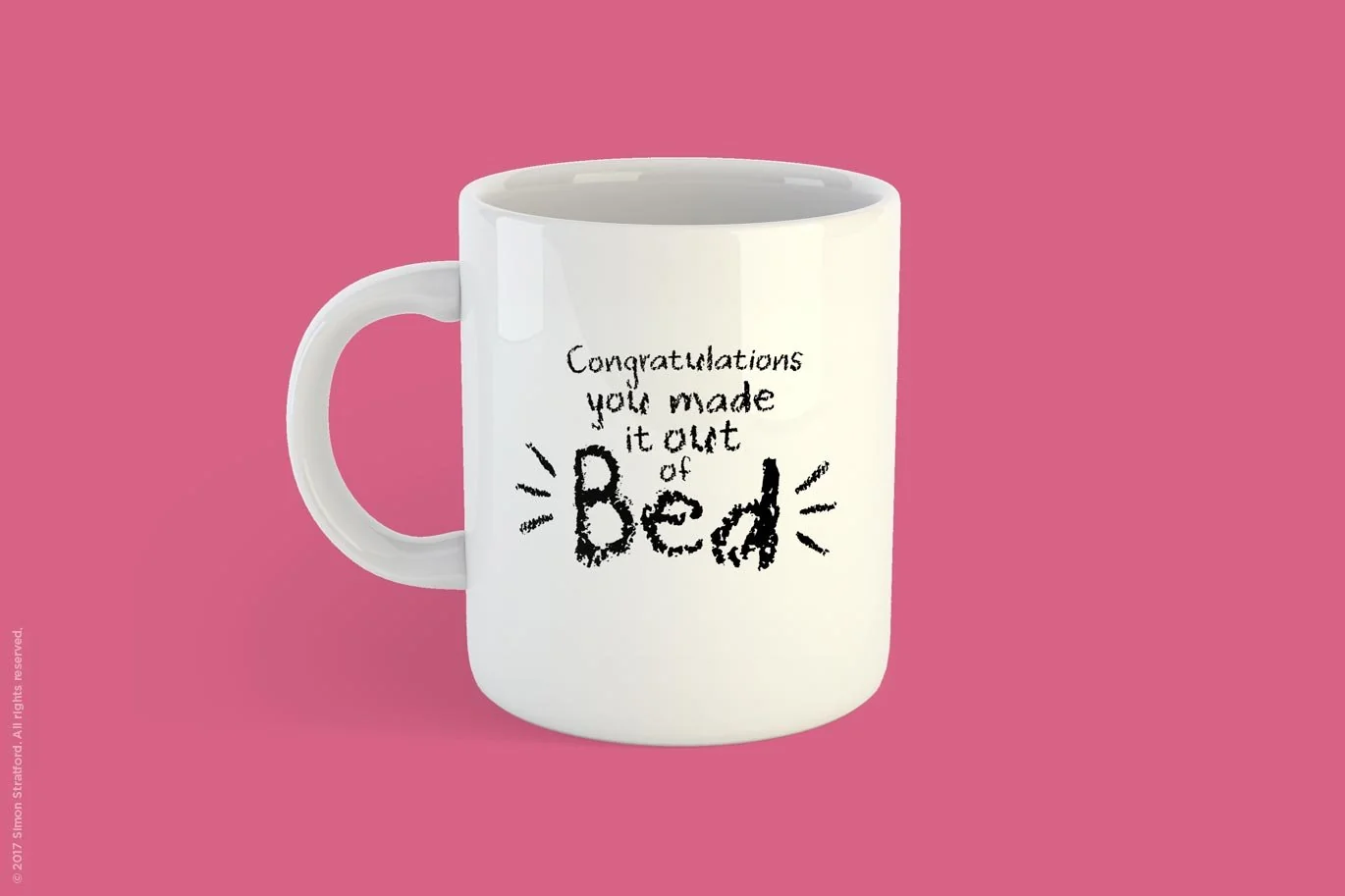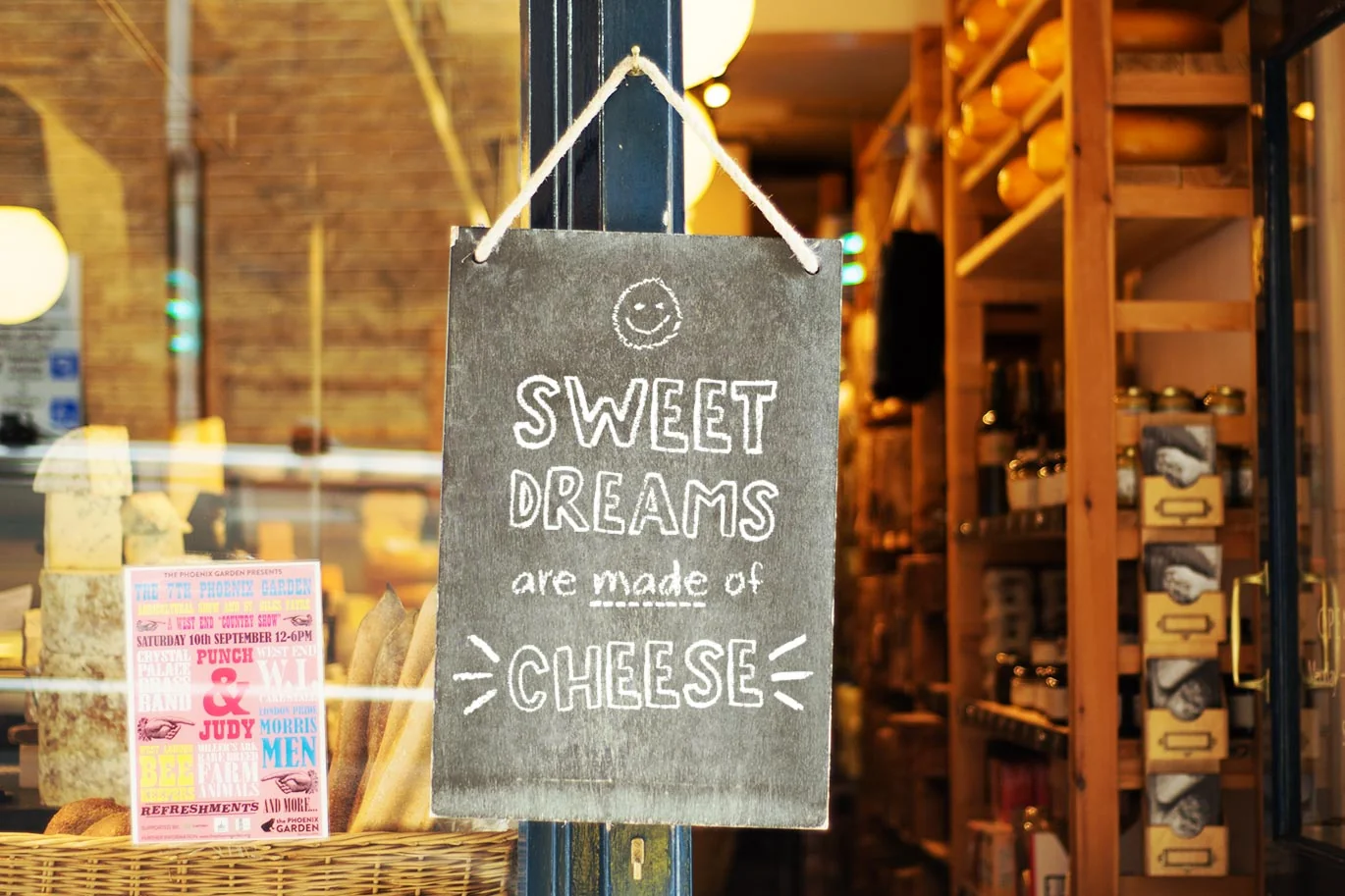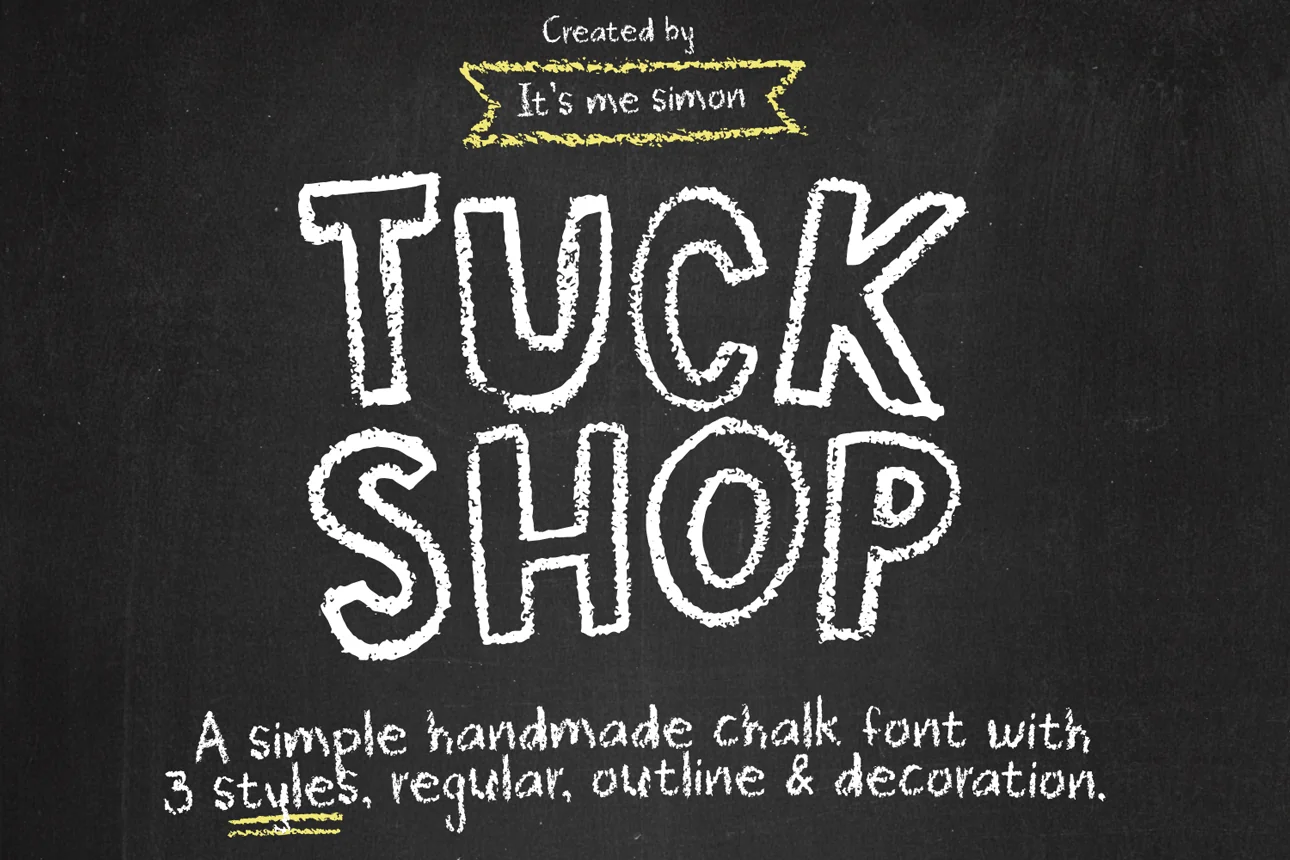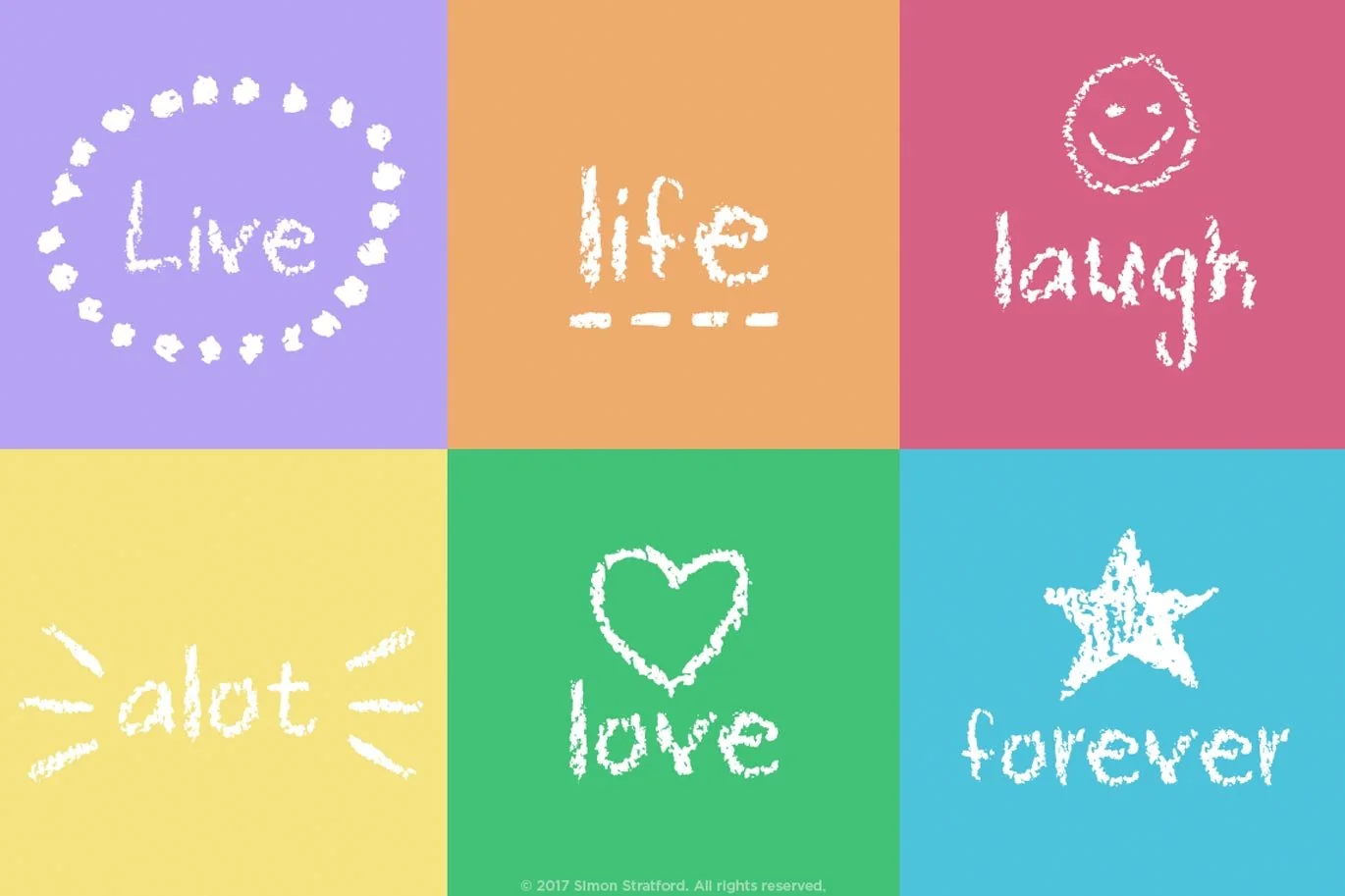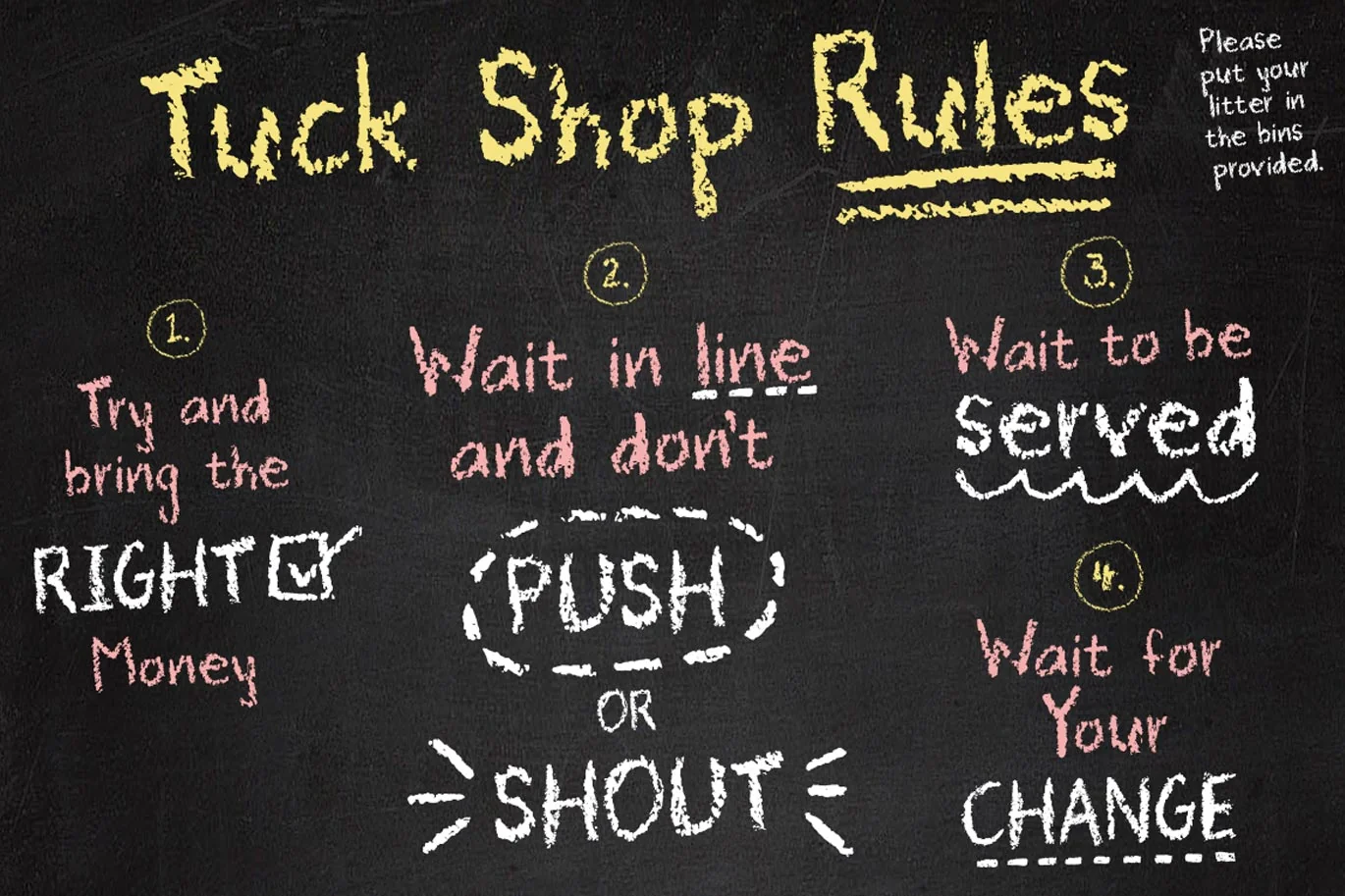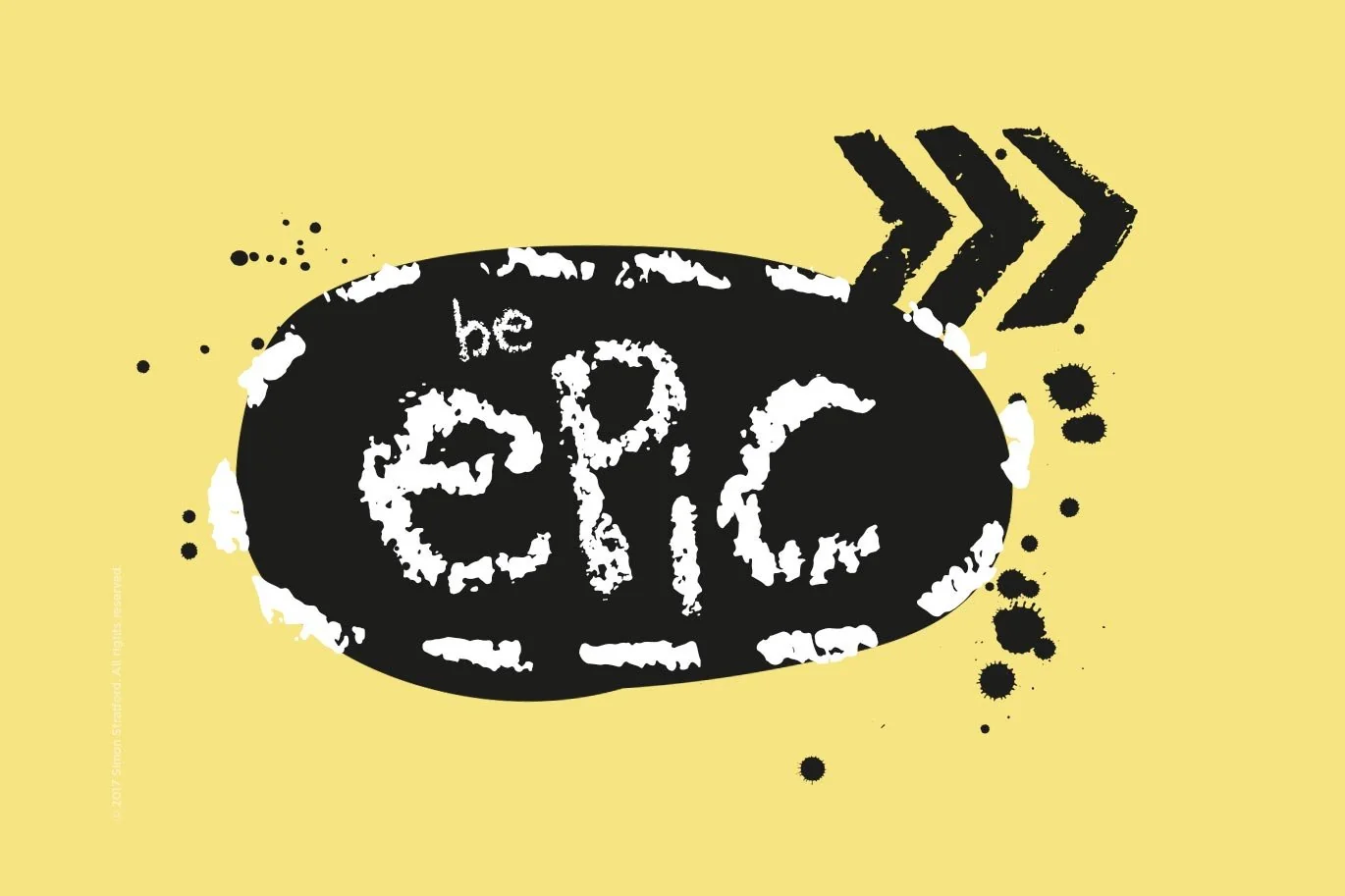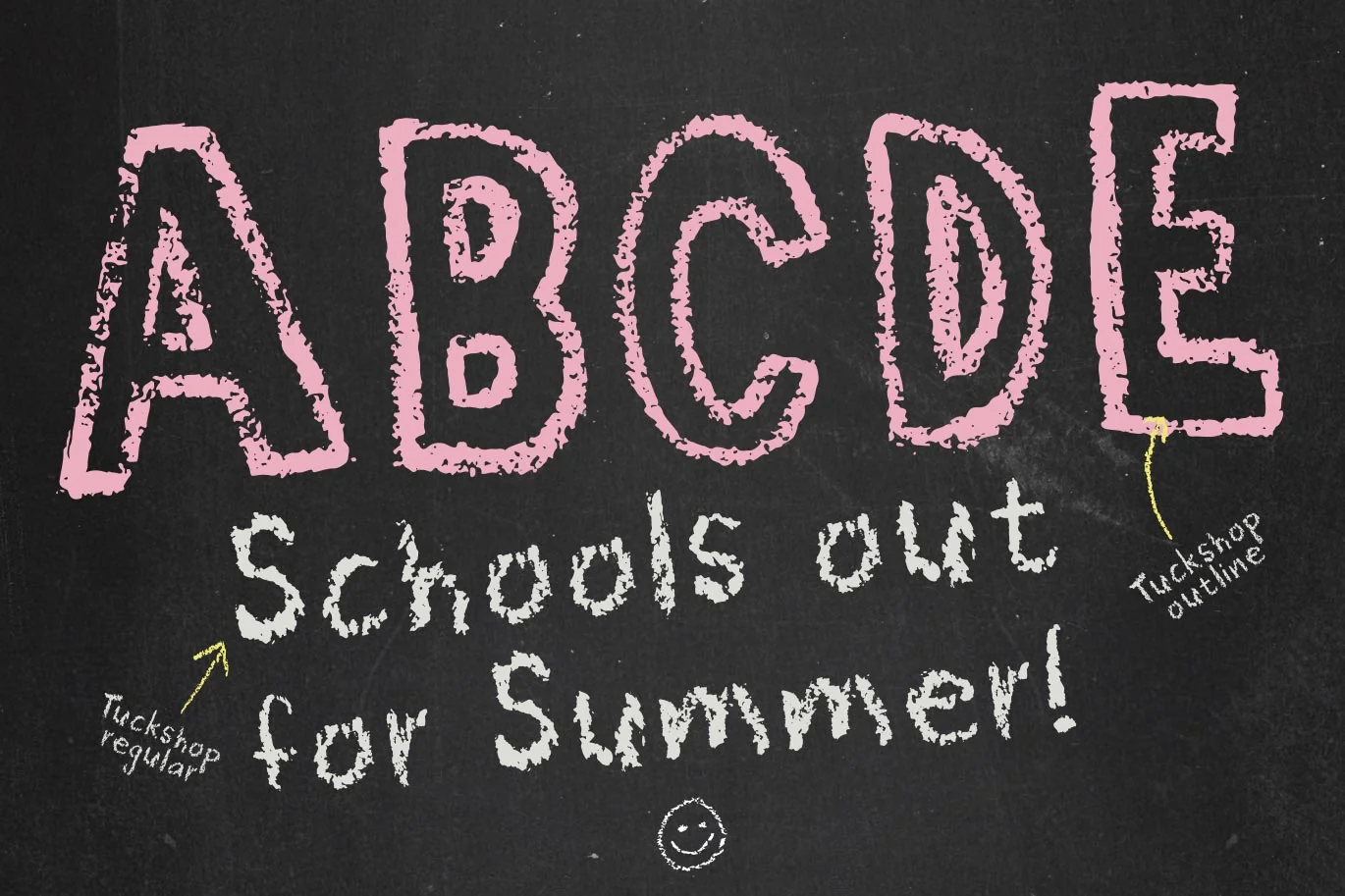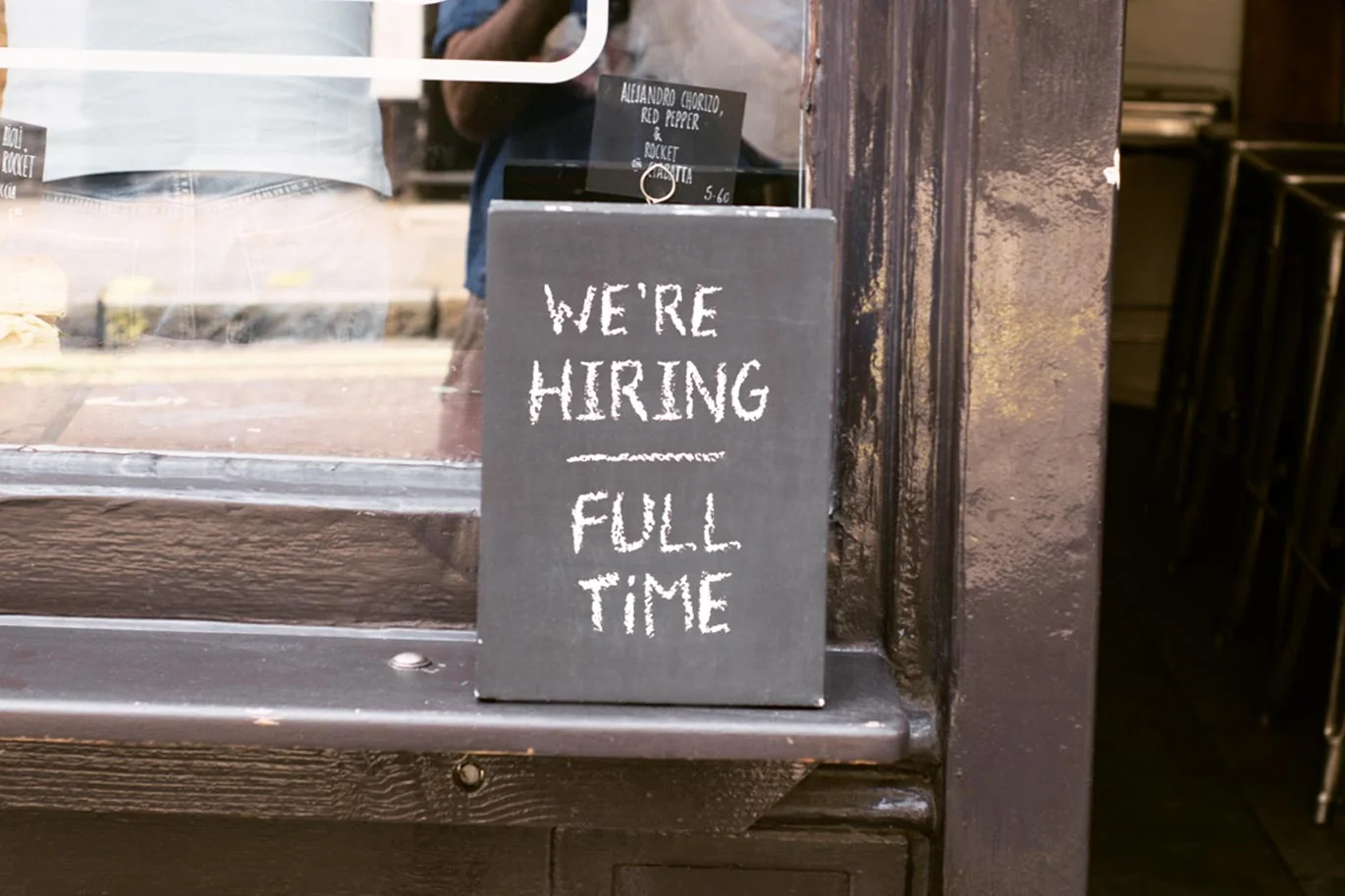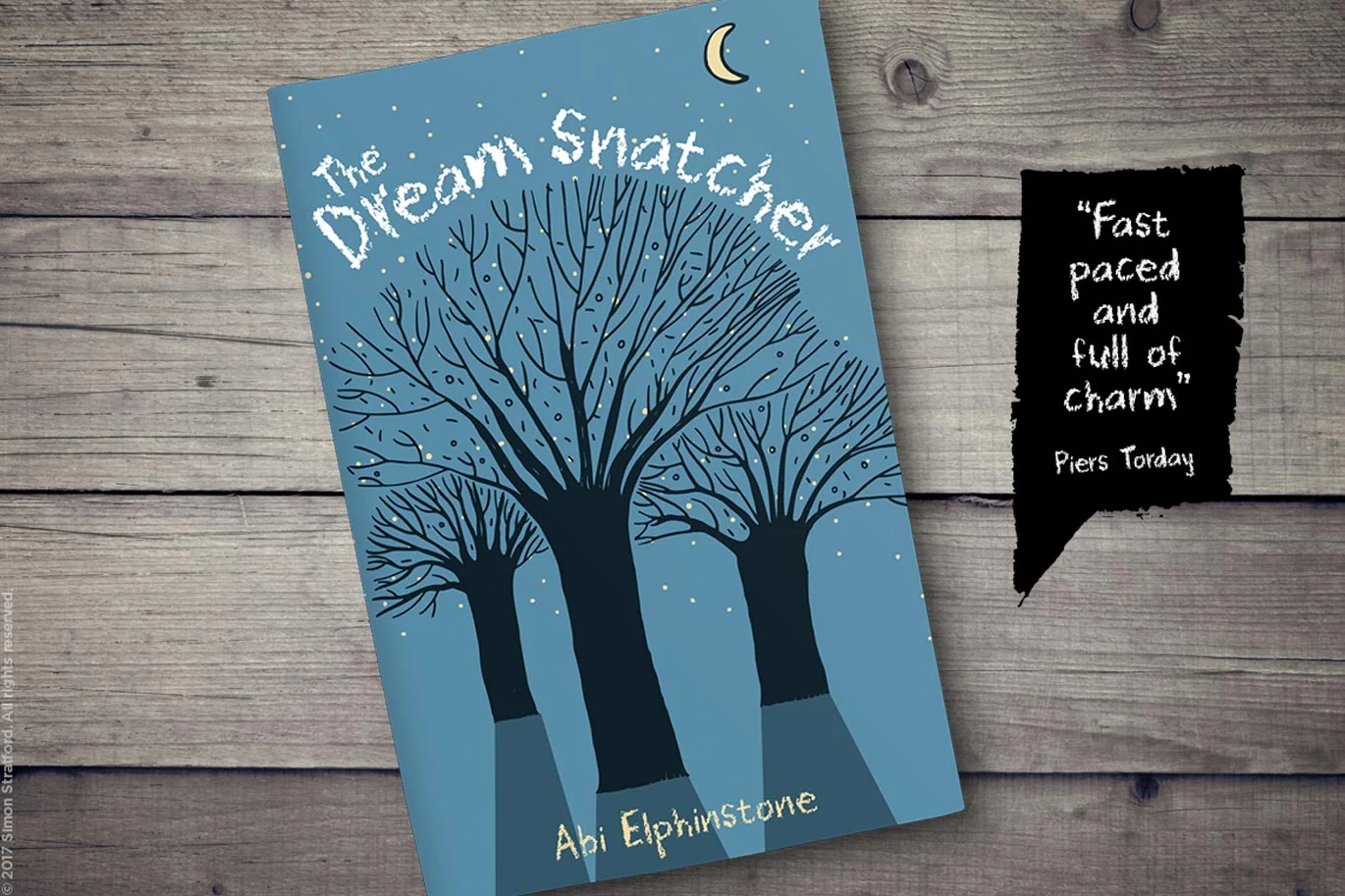
Tuck Shop font
Tuck shop was handmade using real chalk and a natural slate chalkboard.
It’s a very detailed display font with a childlike naive personality. Because it was hand drawn it’s rough and untidy but that just adds to its charm.
It reminds me of school and those notice boards outside coffee shops. It would be perfect for children’s books and posters but it’s a fun, casual typeface and would work for any project that requires a chalk style.
The font also has a set of ornaments, 77 in total. Covering everything from stars to speech bubbles it’ll have something handy for you to use.
Tuck shop includes
- Three styles (regular, outline and decoration)
- Upper and lowercase glyphs
- Punctuation & Symbols
- Western European characters
- Central European characters
- South Eastern European characters